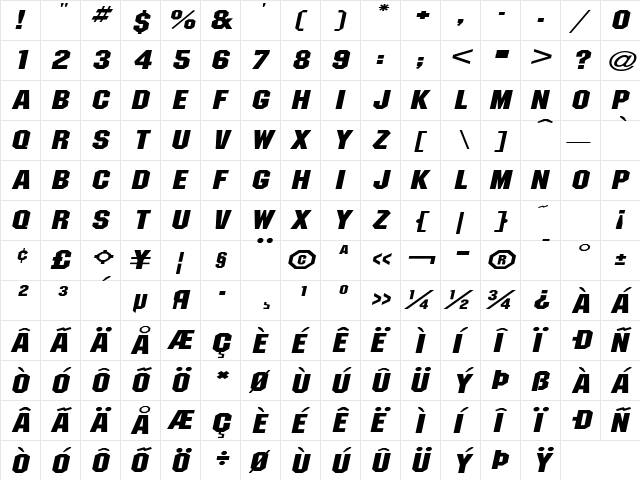
PittsburghExtended Oblique
Design Context for PittsburghExtended Typeface
PittsburghExtended takes a measured approach to typography — its balanced proportions and neutral character make it a reliable workhorse for both digital and print work. The slanted form adds forward momentum and visual energy.